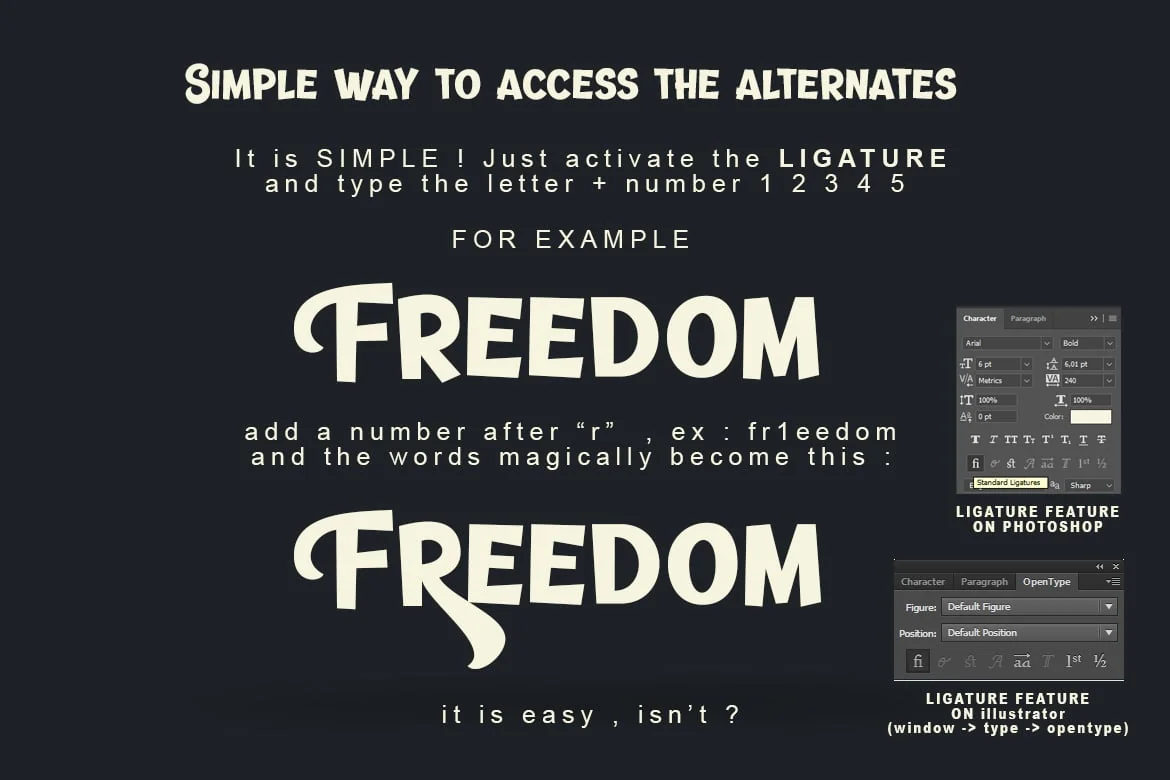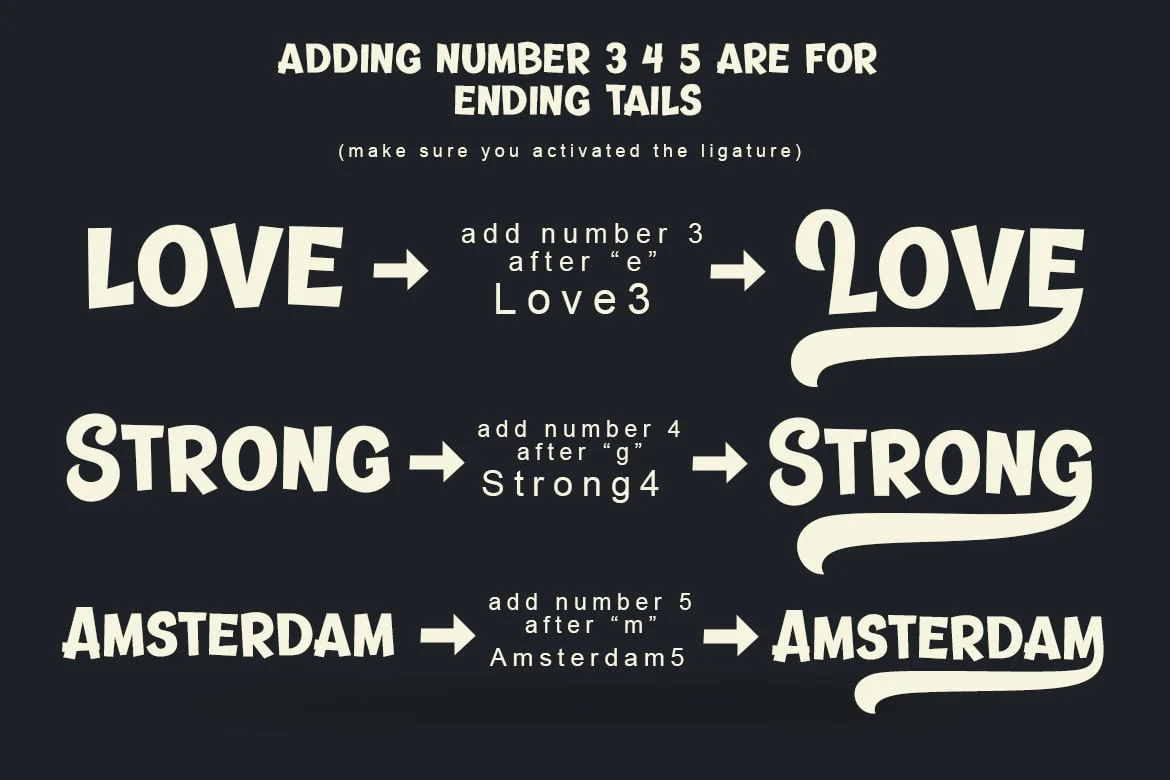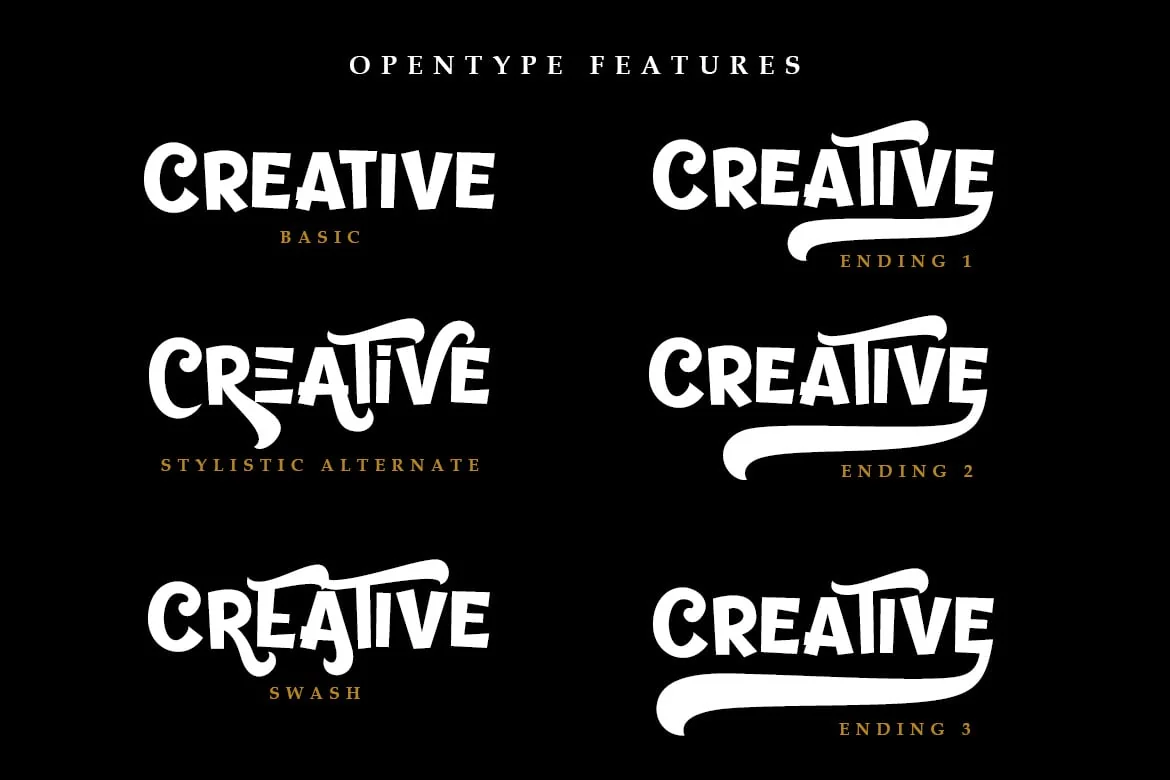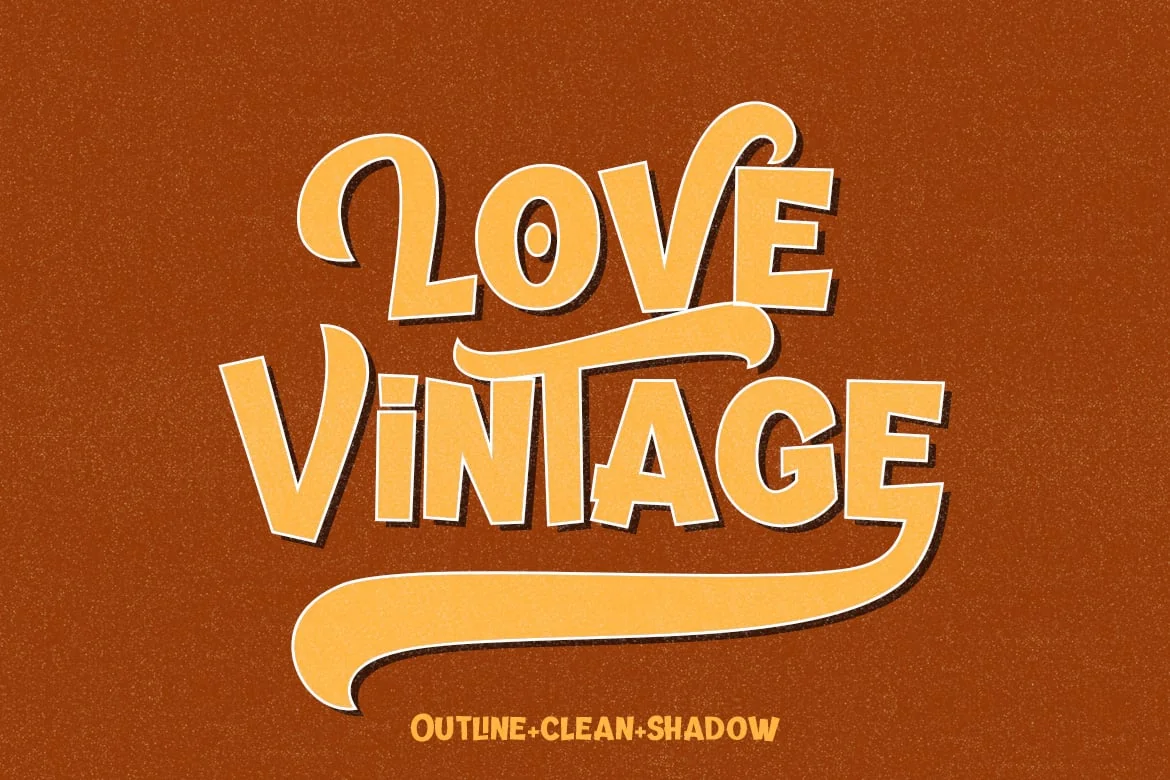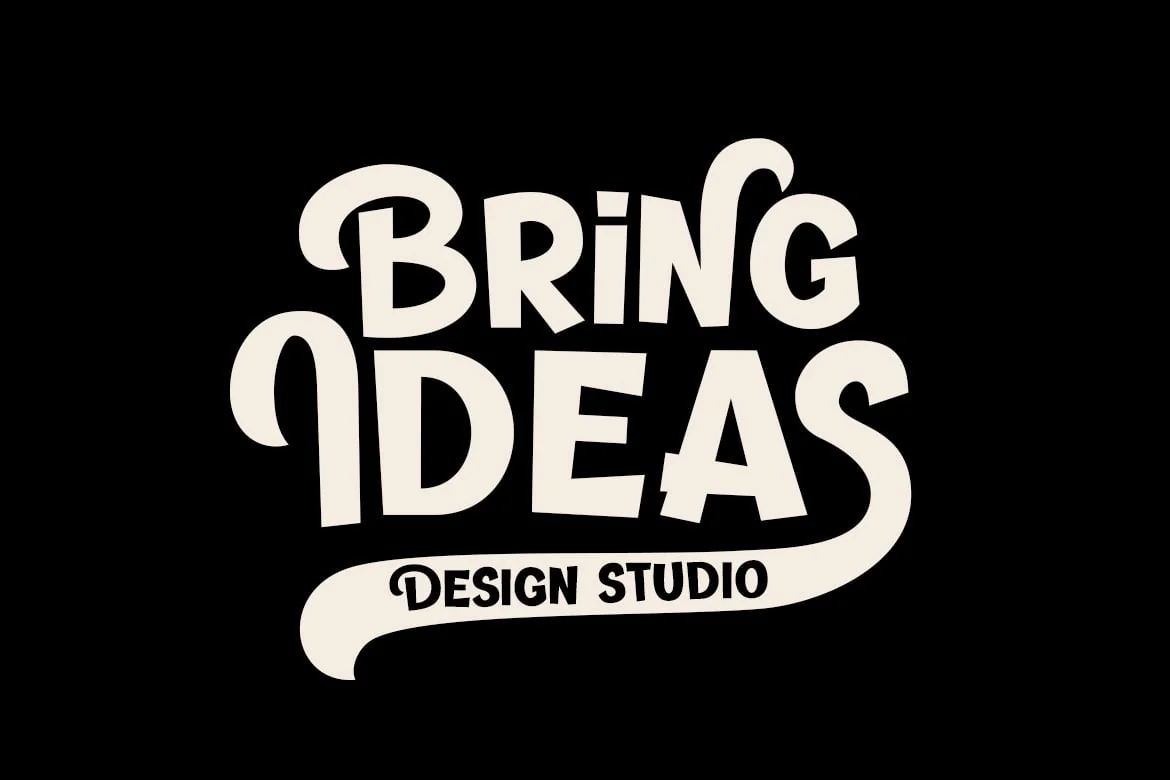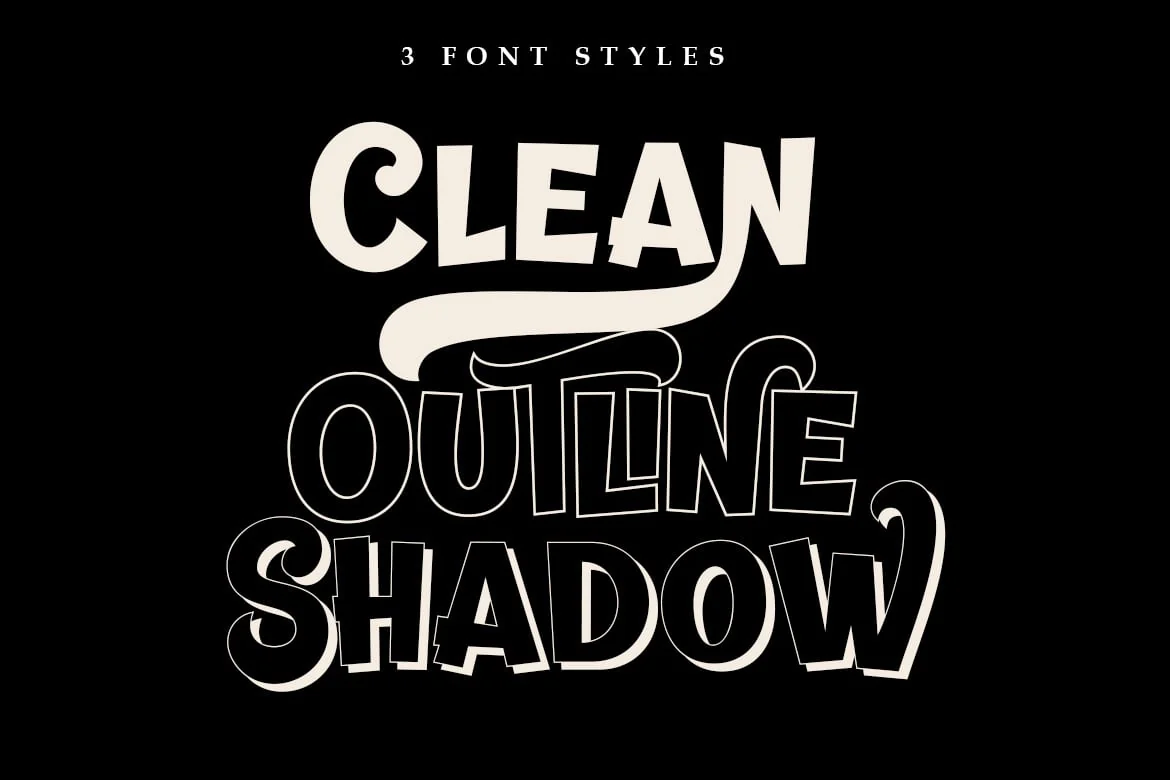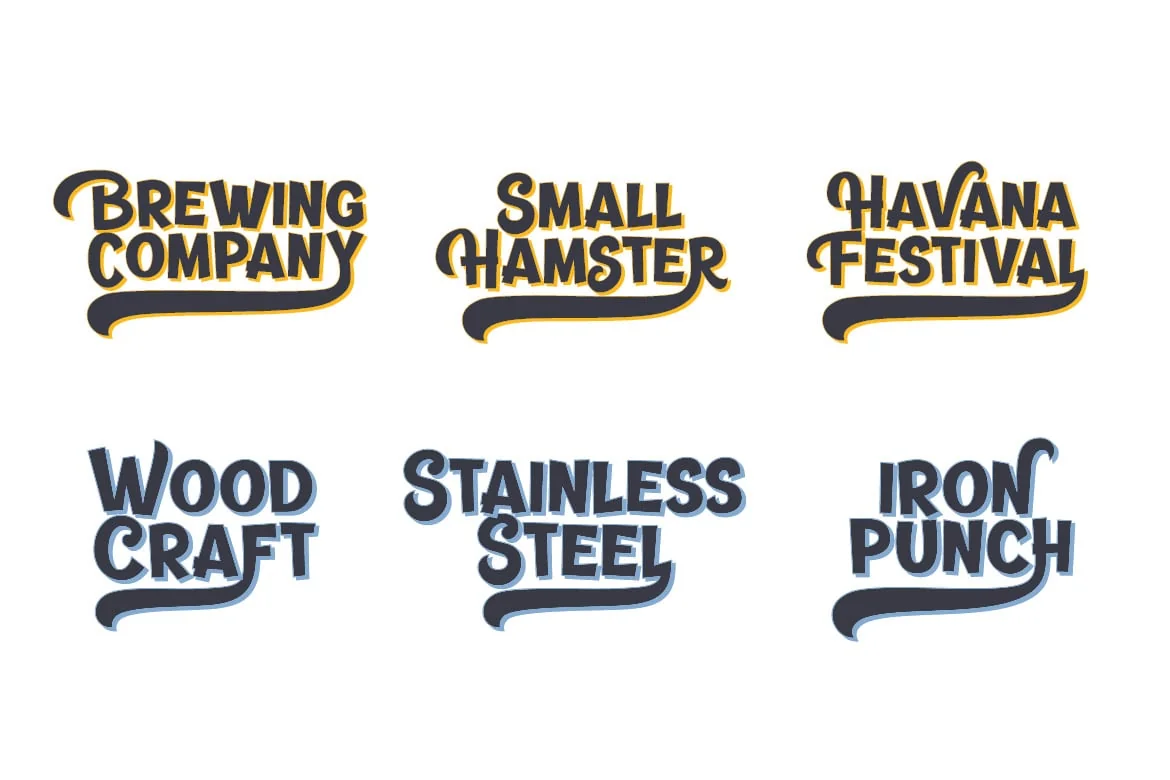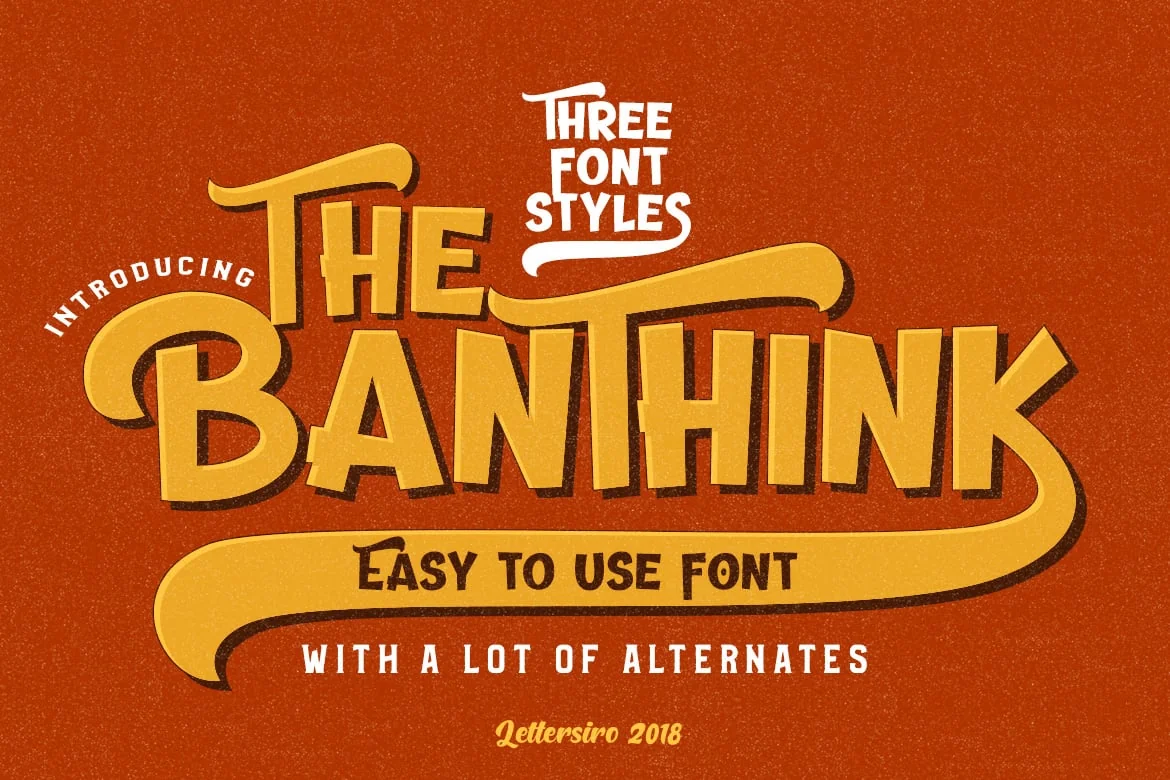
The Banthink – Retro Font
We just launch our newest product. We made a playful font, so cool and modern-vintage looks , called Banthink Font.
This font is great for logo, poster, clothing, branding, party invitation, and many many other cool design projects. Banthink comes with a lot of alternate character, and also come with 3 font styles. Banthink Font:
- Add more style to each font with OpenType Features – stylistic alternates, lowercase final form, ligatures, stylistic sets.
- Multilingual support – spread your message globally AÀÁÂÃÄÅCÇDÐEÈÉÊËIÌÍÎÏNÑOØÒÓÔÕÖUÙÜÚÛWYÝŸỲŸÆŒßÞþ